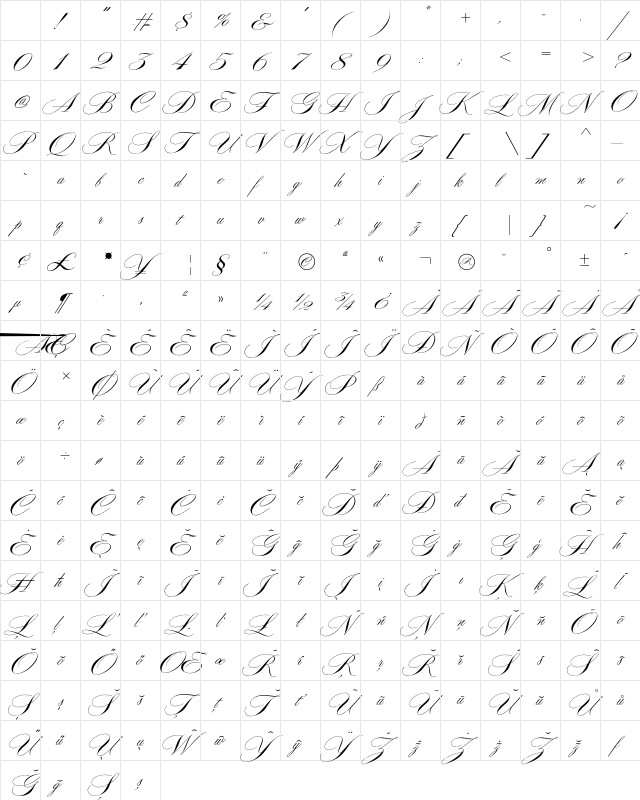
Complete Adagio Pro Regular glyph index. Displaying only characters natively supported by Adagio Pro Regular font.
Adagio Pro is a composed and adaptable typeface that performs quietly and consistently across a wide range of design contexts.